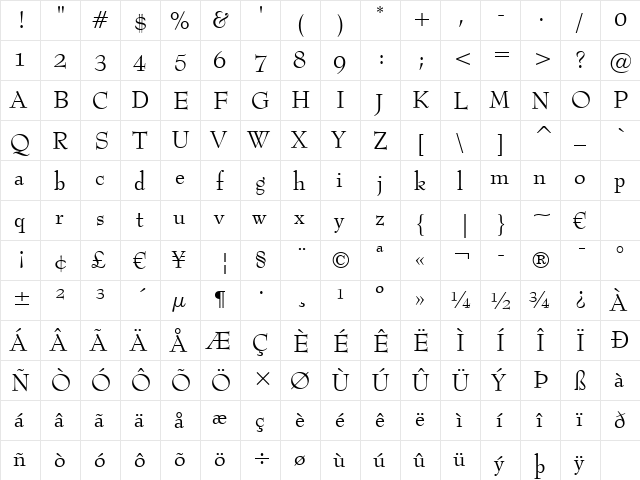
BernhardMod OSF BT Roman
Design Context for BernhardMod OSF BT Typeface
BernhardMod OSF BT is a composed and adaptable typeface that performs quietly and consistently across a wide range of design contexts.